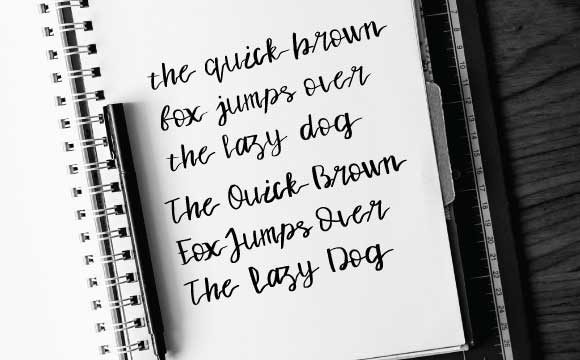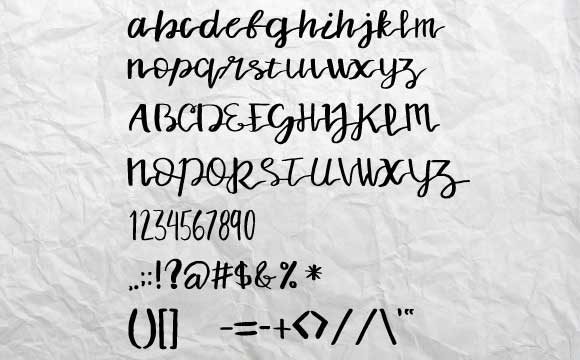
Introduction to Melanda Font
Have you ever found yourself rummaging through your design stash, searching for the perfect font to elevate your creative project? I know I have! There’s something special about discovering a font that makes your design stand out from the crowd. For designers like us, finding the right font can be the difference between a good design and a great one.
That’s why I’m excited to introduce you to the Melanda Font, a sweet and simple script that will make any craft shine. With its elegant lines and subtle flair, this font is perfect for adding a touch of sophistication to your design. And the best part? You can download it for free, complete with a transparent background, making it easy to use in any design project.
As a valuable design resource, the Melanda Font offers high quality and versatility, making it a must-have for any designer’s collection. Whether you’re working on a personal project or a client’s design, this font is sure to impress. So why wait? Get creative with the Melanda Font and take your designs to the next level!
Key Features of Melanda Font
- High-quality, professional design ideal for creative projects and presentations.
- Transparent background allows for seamless integration with any background, making it a versatile design resource.
- Designed with a clean and modern aesthetic, making it suitable for a variety of creative projects and presentations.
Honest Review: Melanda Font
I recently had the chance to try out the Melanda Font, and I’m excited to share my thoughts on this design resource. The free download was a pleasant surprise, and I was immediately drawn to its unique style.
One of the standout features of Melanda Font is its high quality and versatility. The font is perfect for a creative project that requires a touch of elegance and sophistication. I particularly loved the ability to use it with a transparent background, which really makes the text stand out.
Here are some of the things that work well with Melanda Font:
- ✨ Unique and elegant style
- ✨ High quality and crisp typography
- ✨ Versatile and suitable for various creative projects
- ⚠️ Limited font sizes and styles may make it less suitable for complex designs
- ⚠️ Not ideal for body text due to its elegant and decorative nature
Overall, I’m impressed with the Melanda Font. While it may have its limitations, it’s a great addition to any designer’s toolkit, especially for creative projects that require a touch of sophistication.
Using Melanda Font in Creative Projects
Customizing Melanda Font with Transparent Background
Take your creative project to the next level by using the Melanda Font with a transparent background. This feature allows you to overlay the font on top of images or other design elements, giving your project a sleek and modern look.
Getting the Most Out of Melanda Font
For optimal results, use the Melanda Font in conjunction with other high-quality design resources. Experiment with different font sizes, colors, and styles to find the perfect combination for your project.
Common Use Cases for Melanda Font
The Melanda Font is ideal for a variety of creative projects, including logos, business cards, and social media graphics. Its high-quality design and transparent background feature make it a versatile and valuable design resource.
Alternatives to Melanda Font
The Great Vibes Font is a high-quality, elegant script font perfect for creative projects that require a touch of sophistication. It’s ideal for use on a transparent background, allowing the intricate details to shine. Great Vibes Font is a great alternative to Melanda Font for designers looking for a more refined and luxurious feel.
Comparison to Melanda Font: While Melanda Font has a unique, hand-drawn feel, Great Vibes Font offers a more polished and refined look that’s perfect for high-end design projects.
The Pacifico Font is a beautiful, cursive script font that’s perfect for creative projects that require a touch of elegance. It’s a great alternative to Melanda Font for designers looking for a more relaxed and casual feel. Pacifico Font is ideal for use on a transparent background, allowing the intricate details to shine.
Q: Is the Melanda Font a high-quality design resource?
Yes, the Melanda Font is a high-quality design resource that has been carefully crafted to provide a unique and stylish look for your creative project. With its clean lines, elegant curves, and sophisticated typography, the Melanda Font is perfect for designers who want to create a professional and polished visual identity for their project.